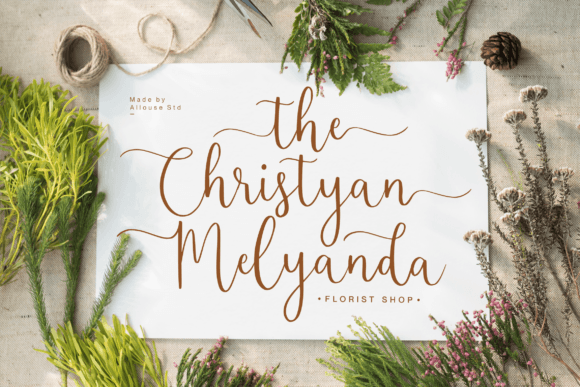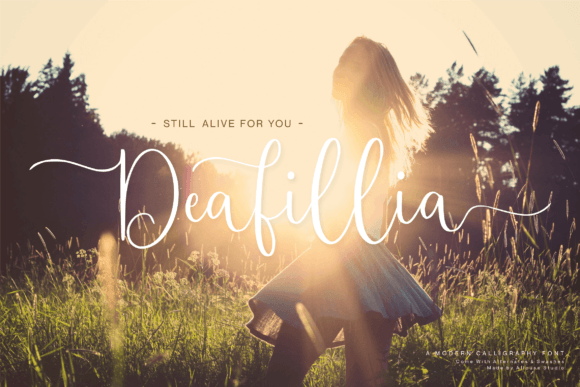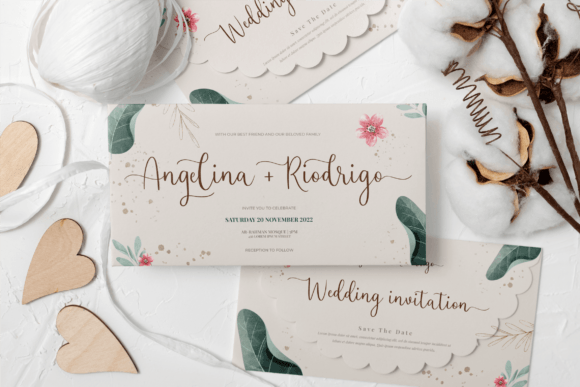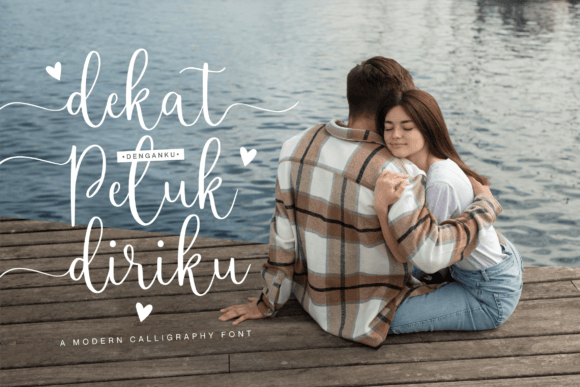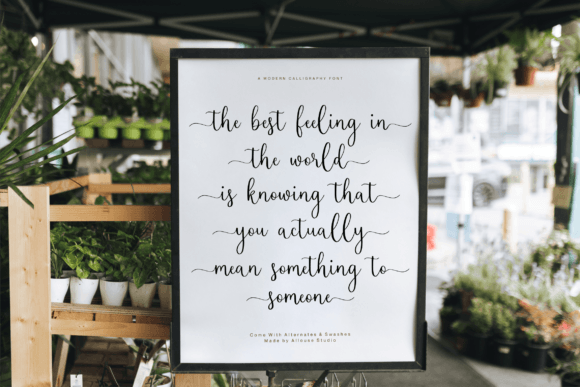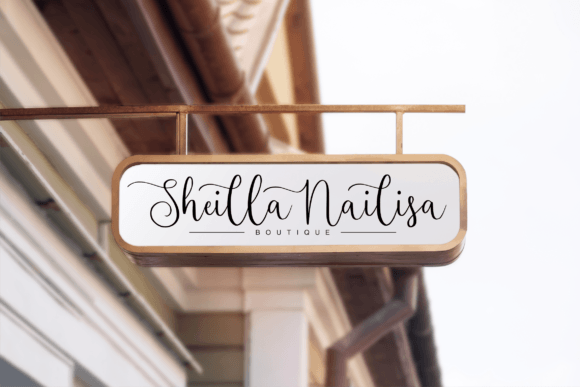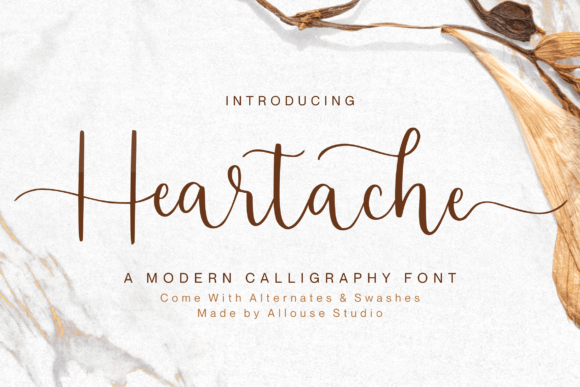
Introducing Heartache Font: The Perfect Handwritten Font for Designers and Crafters
Are you a designer or crafter looking for a beautiful handwritten font to elevate your creative projects? Look no further than Heartache Font, a stunning script font that is perfect for product packaging, branding projects, magazines, social media posts, weddings, and more. In this article, we’ll explore the features and benefits of Heartache Font, and why it’s a must-have for any designer or crafter.
What is Heartache Font?
Heartache Font is a beautiful handwritten font that is designed to add a touch of elegance and sophistication to any project. With its flowing script and delicate lines, this font is perfect for creating beautiful and eye-catching designs. Whether you’re working on a product packaging project, a branding campaign, or a wedding invitation, Heartache Font is the perfect choice.
Key Features of Heartache Font
- PUA Encoded: Heartache Font is PUA encoded, which means you can access all of the glyphs and swashes with ease. This makes it easy to customize your designs and add your own personal touch.
- Handwritten Script: Heartache Font has a beautiful handwritten script that is perfect for creating elegant and sophisticated designs.
- Versatile: This font is versatile and can be used for a wide range of projects, from product packaging to branding projects, magazines, social media posts, and more.
- Elegant and Sophisticated: Heartache Font has an elegant and sophisticated look that is perfect for creating beautiful and eye-catching designs.
Benefits of Using Heartache Font
- Adds Elegance and Sophistication: Heartache Font adds an touch of elegance and sophistication to any project, making it perfect for high-end designs.
- Customizable: With its PUA encoding, Heartache Font is easy to customize, allowing you to add your own personal touch to your designs.
- Unique and Creative: Heartache Font is a unique and creative font that will help your designs stand out from the crowd.
Design Ideas Using Heartache Font
- Product Packaging: Use Heartache Font to create beautiful and eye-catching product packaging that stands out on store shelves.
- Branding Projects: Use Heartache Font to create a cohesive brand identity that exudes elegance and sophistication.
- Wedding Invitations: Use Heartache Font to create beautiful and romantic wedding invitations that set the tone for the big day.
- Social Media Posts: Use Heartache Font to create eye-catching social media posts that grab attention and drive engagement.
In conclusion, Heartache Font is a beautiful handwritten font that is perfect for designers and crafters looking to add a touch of elegance and sophistication to their creative projects. With its PUA encoding, handwritten script, and versatility, this font is a must-have for any designer or crafter. Whether you’re working on product packaging, branding projects, magazines, social media posts, or weddings, Heartache Font is the perfect choice.